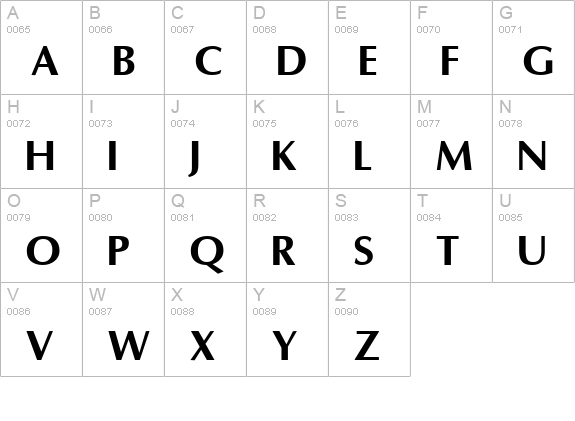
Omni Bold is a strong, high-contrast variant in the Omni typeface family \xE2\x80\x94 well suited to headlines, attention-grabbing titles, and strong calls-to-action.